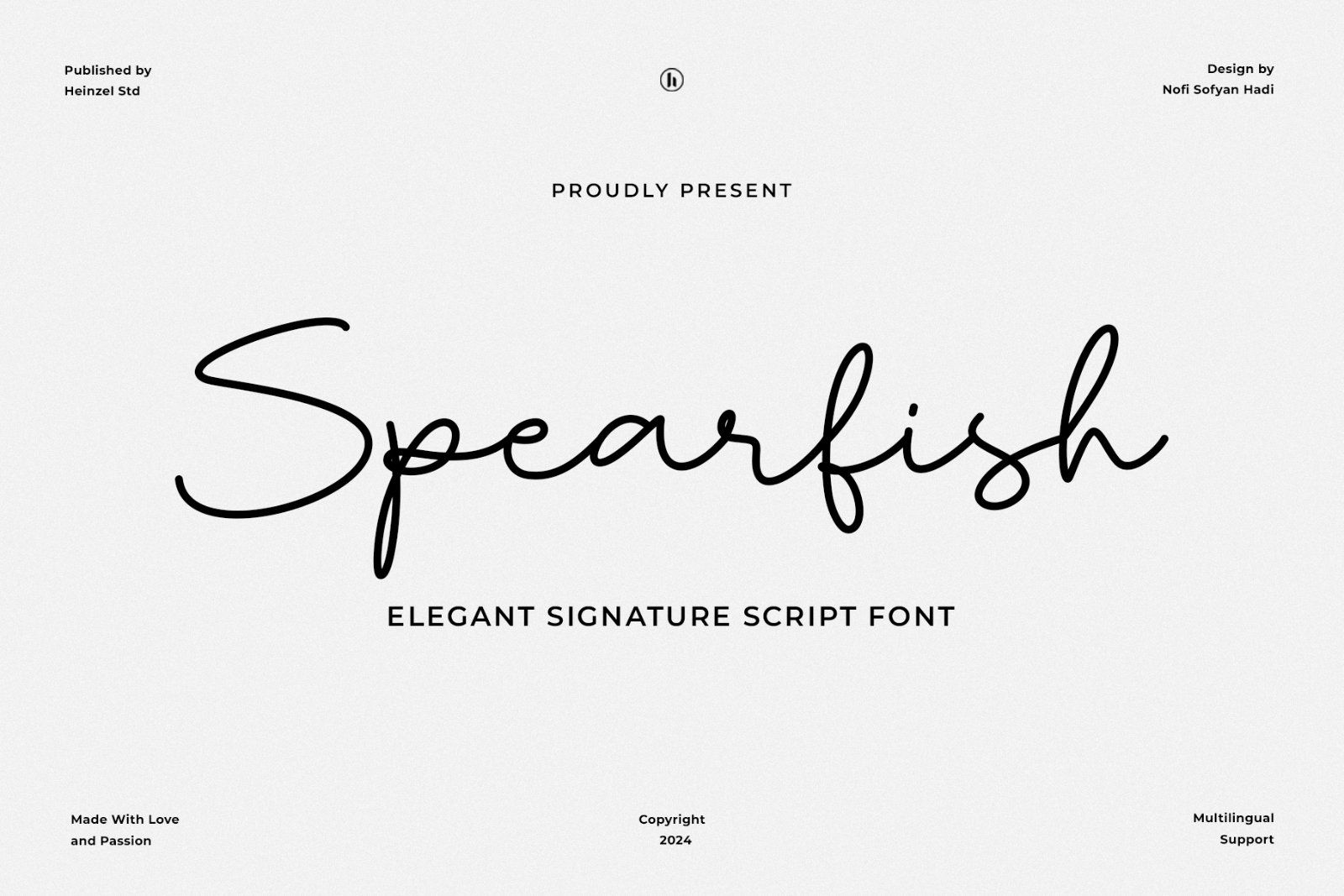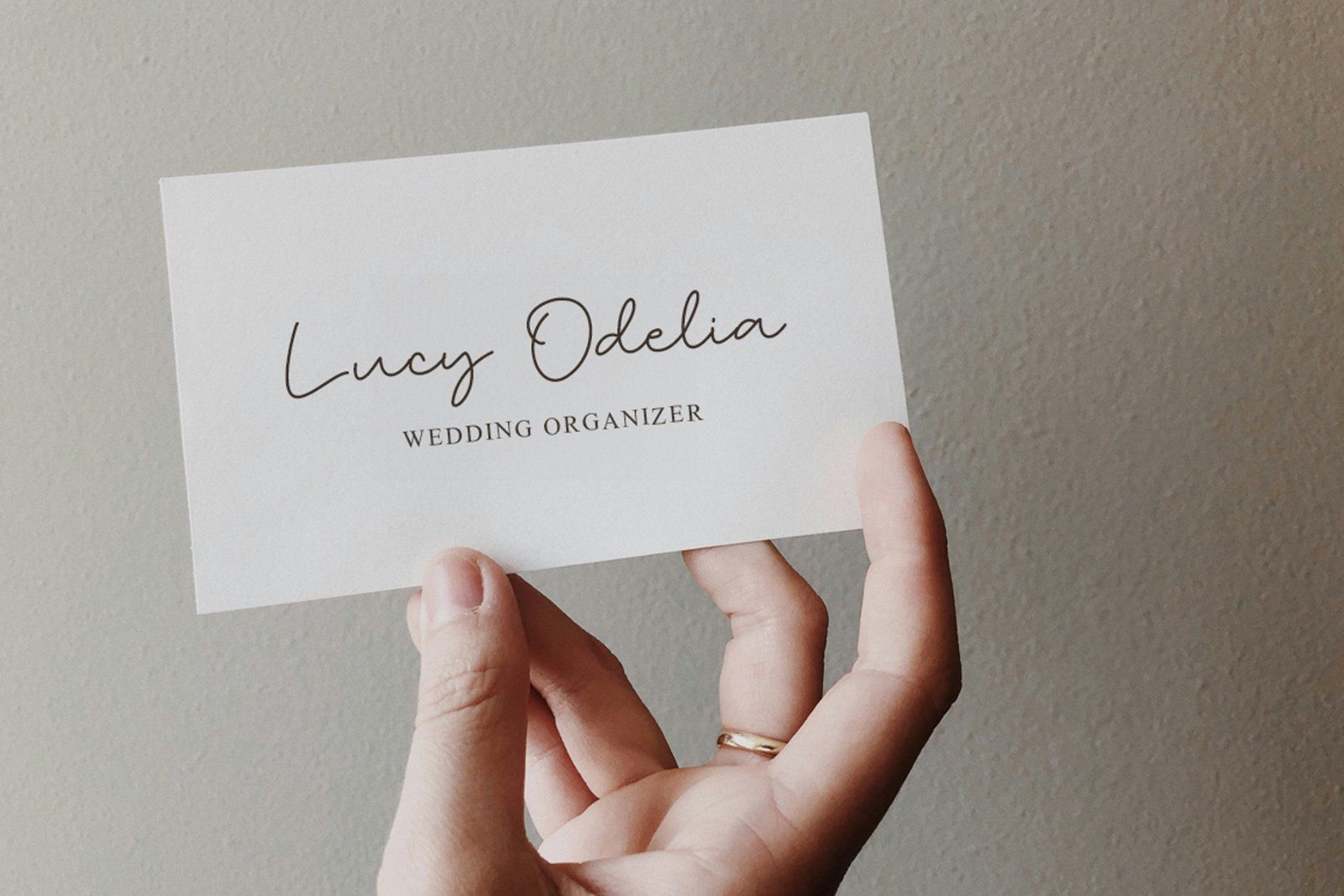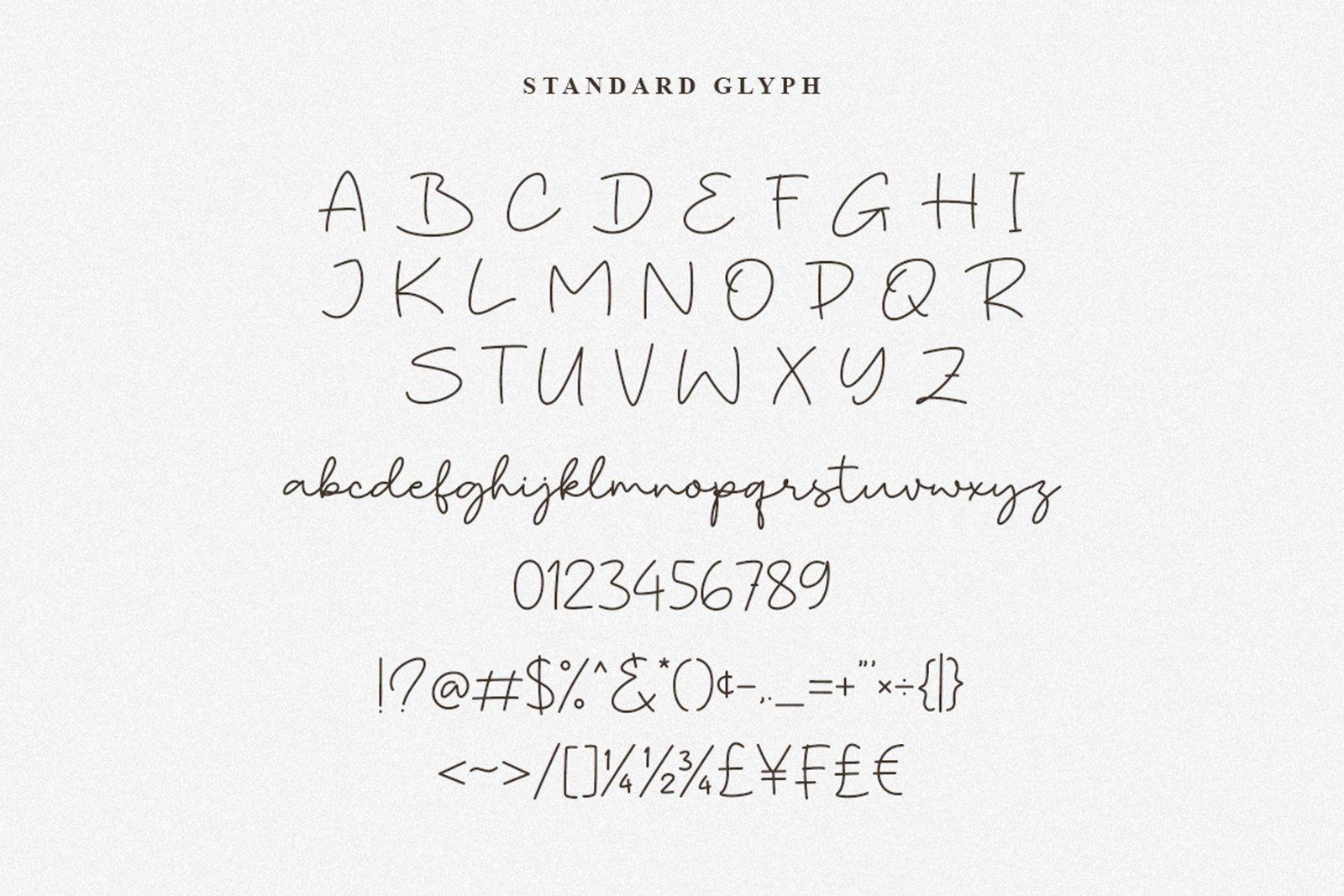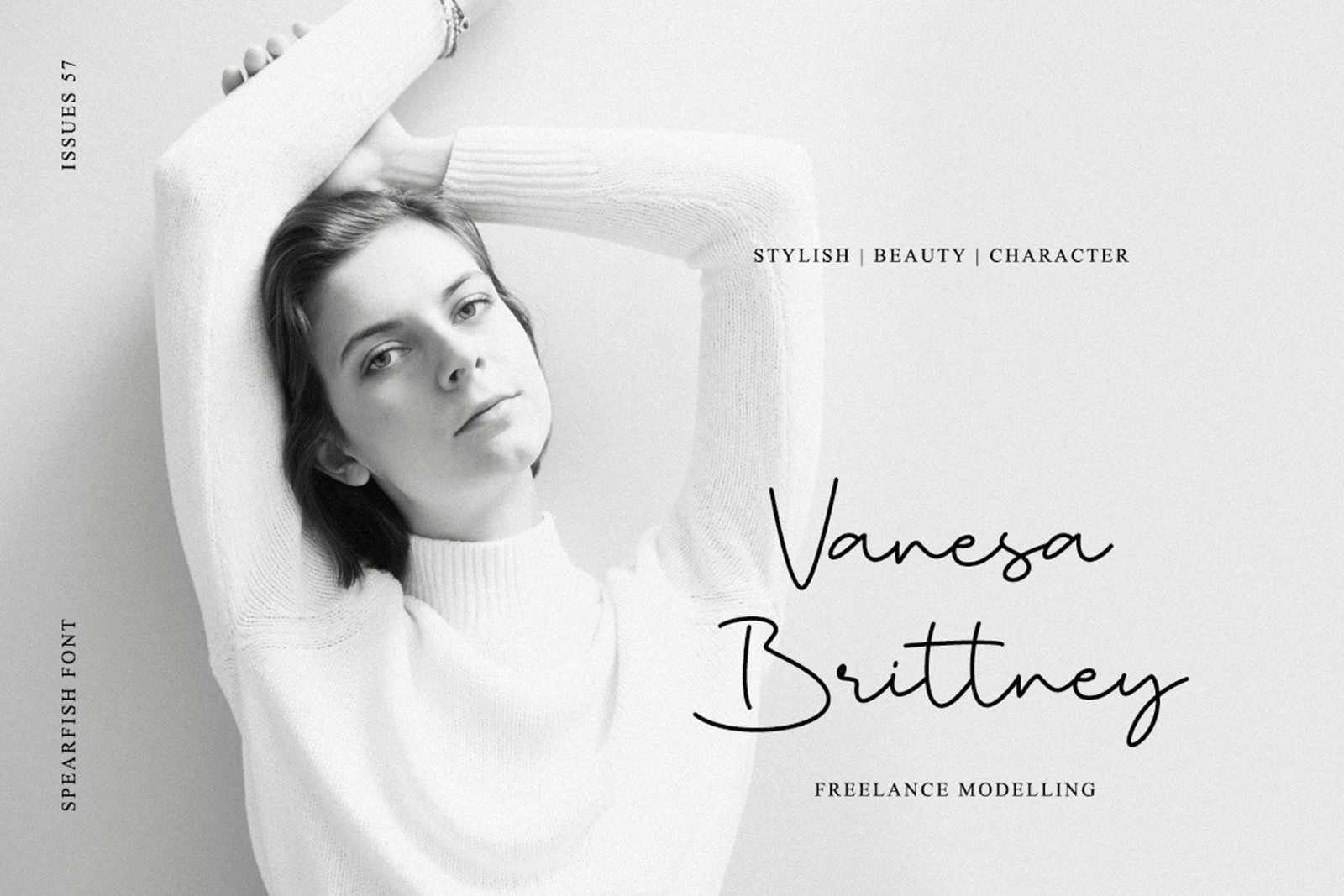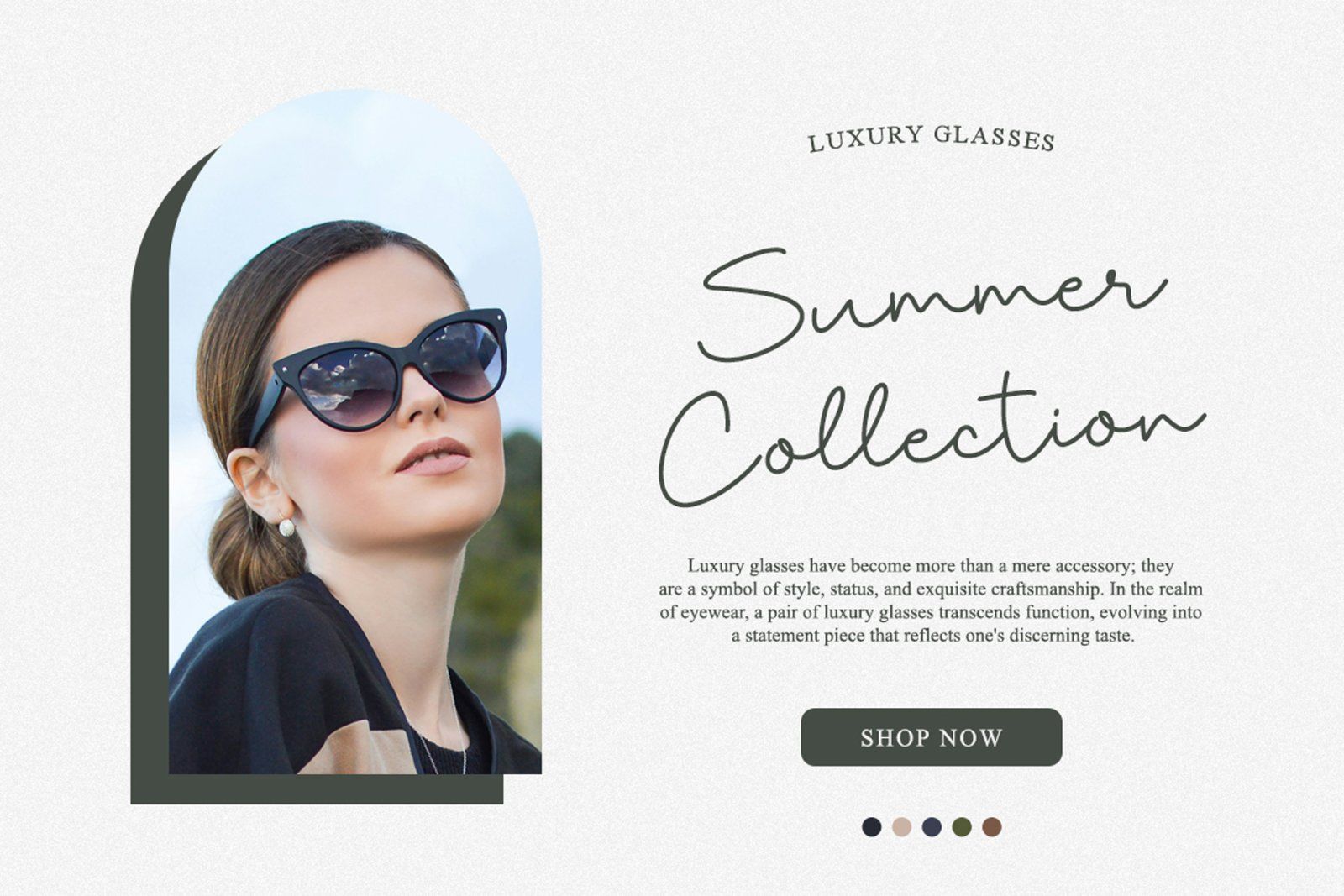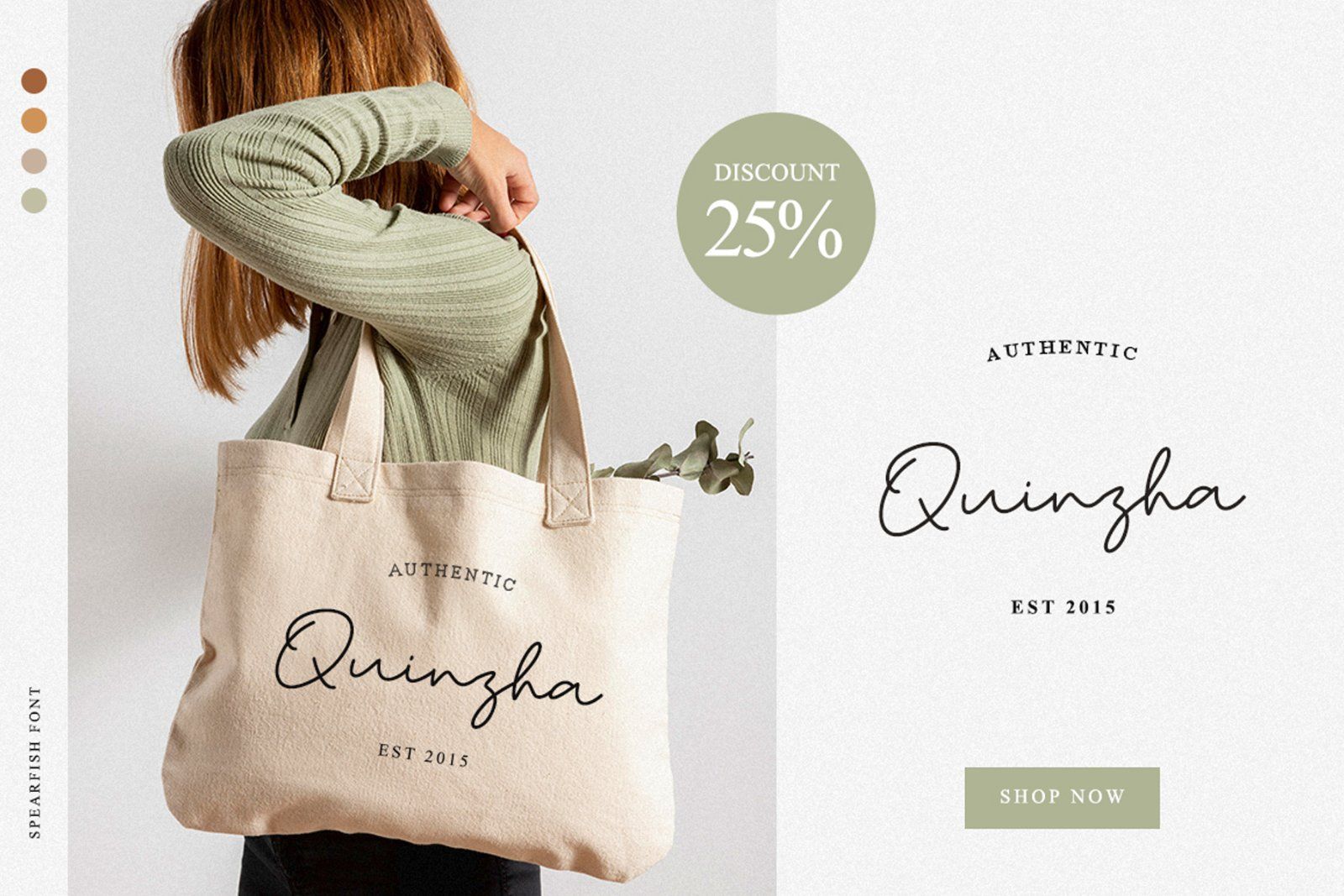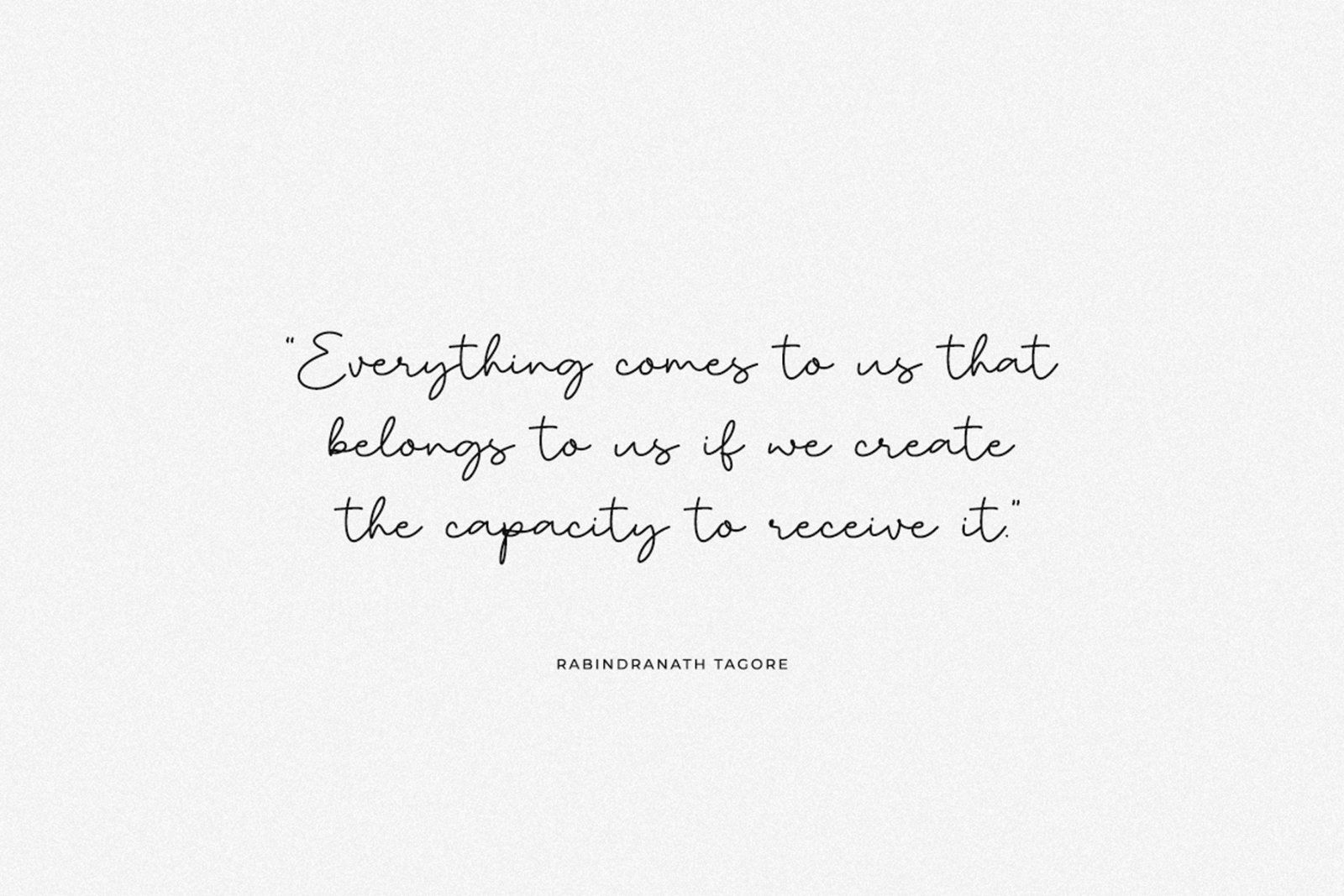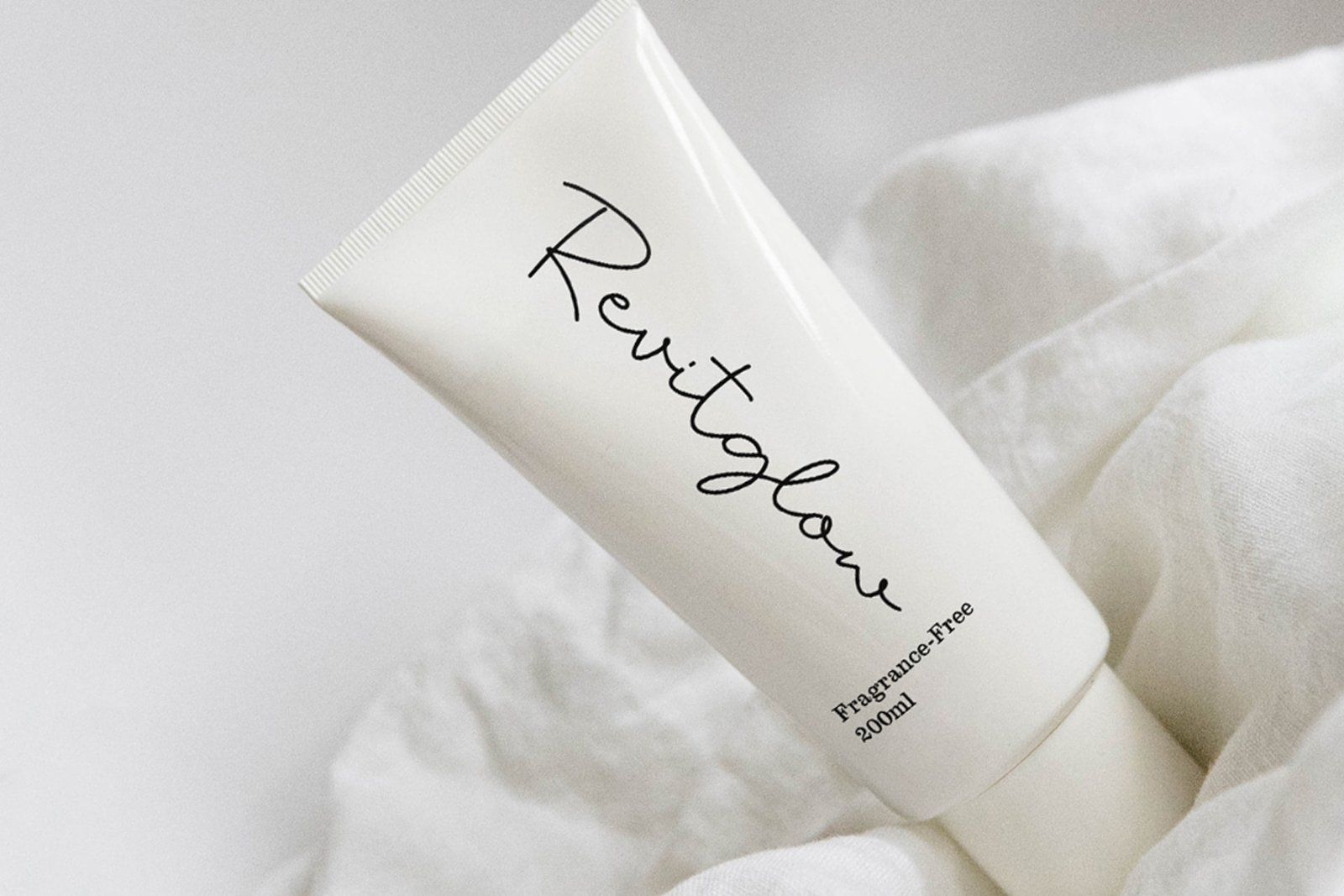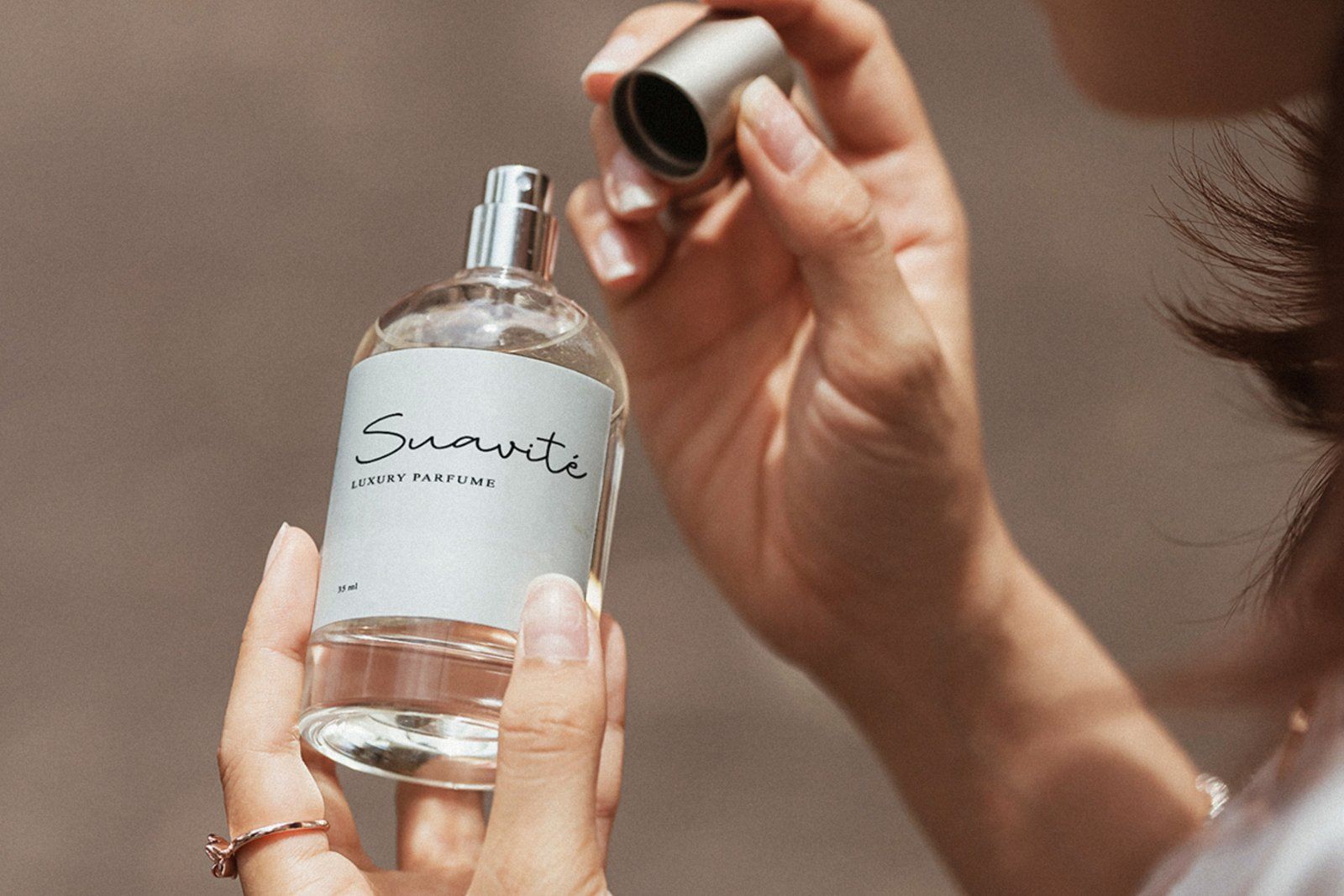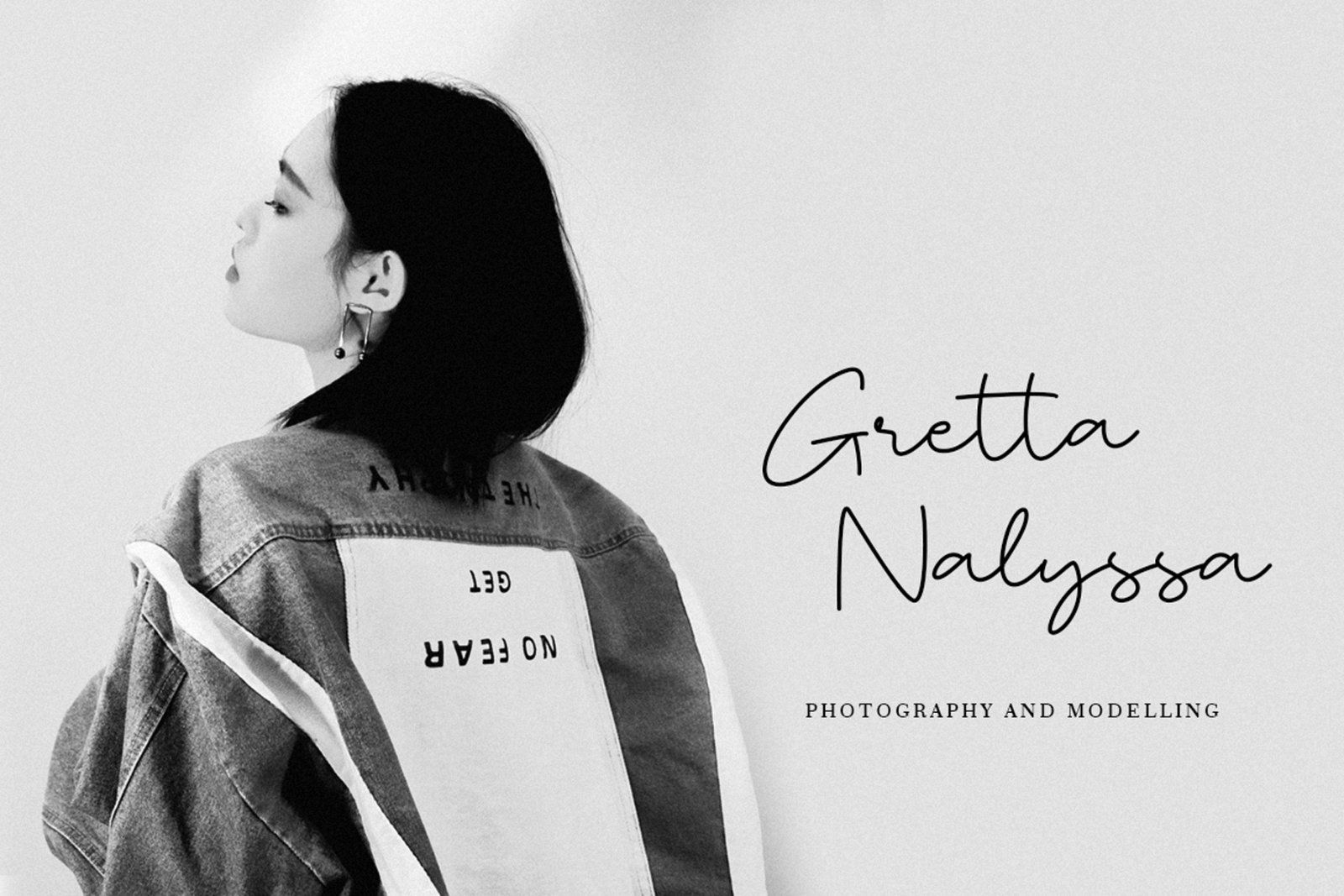
Spearfish is an elegant signature script font designed to bring a natural, sophisticated, and personal touch to your creative projects. With its smooth handwritten strokes, flowing connections, and stylish letterforms, Spearfish creates the authentic feel of a beautiful handwritten signature.
Perfect for branding, logos, wedding invitations, stationery, social media designs, photography, fashion branding, packaging, quotes, greeting cards, and personal projects, Spearfish adds a refined and artistic character wherever it is used.
Its graceful and effortless style makes it especially suitable for feminine branding, luxury identities, editorial designs, and creative projects that need a distinctive handwritten aesthetic.